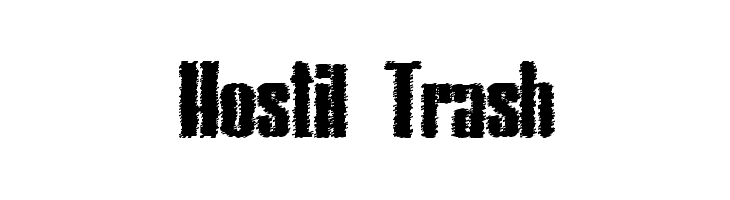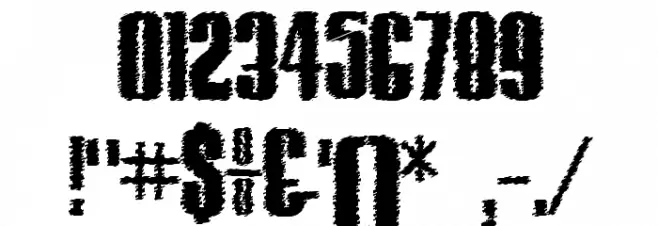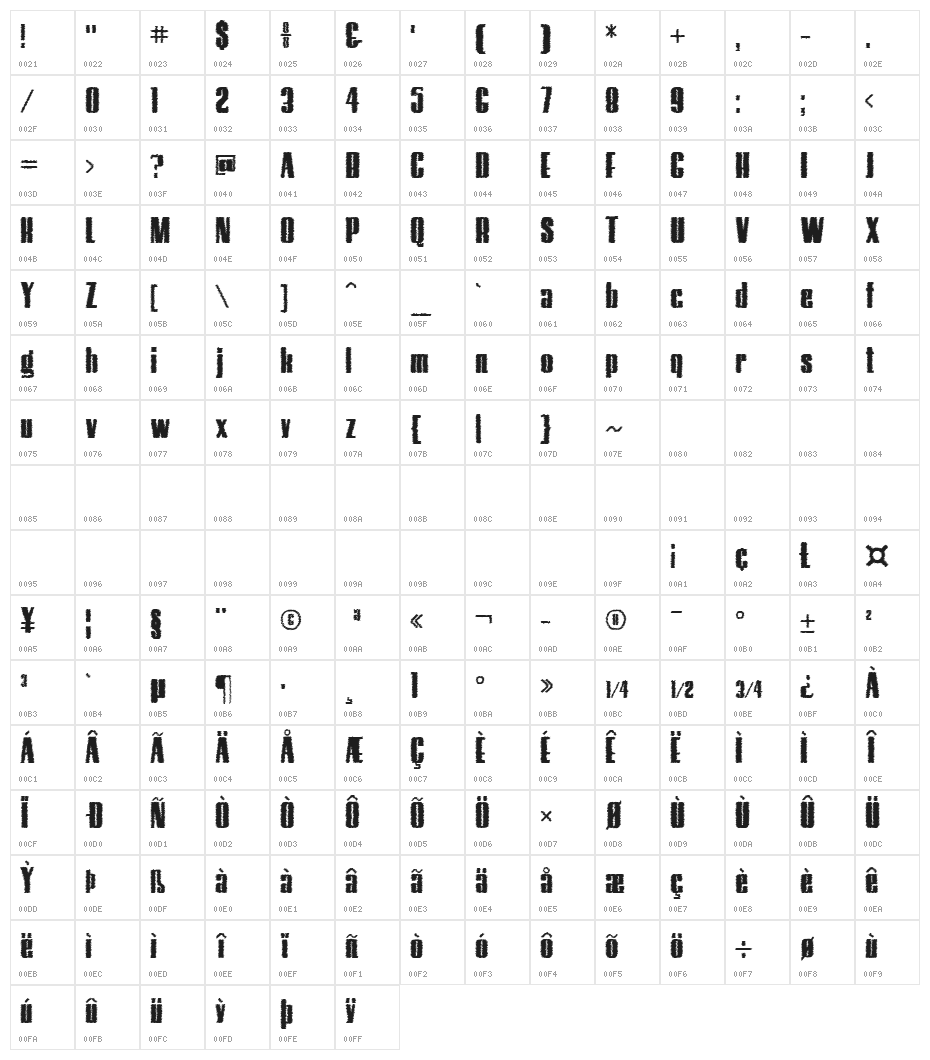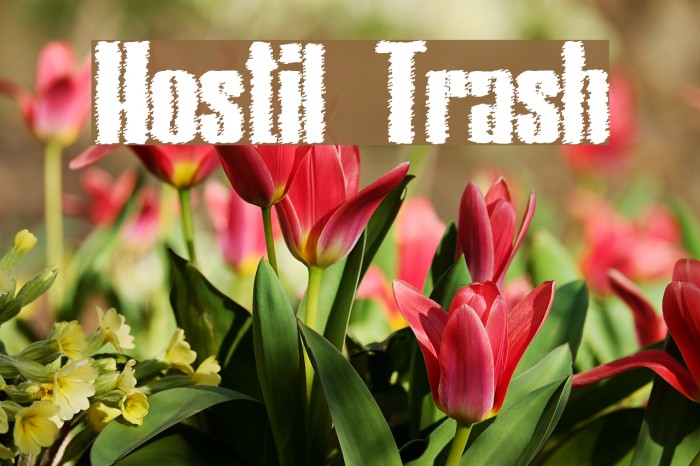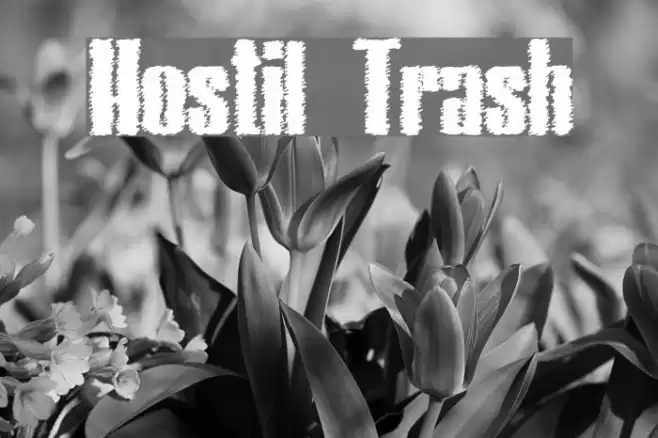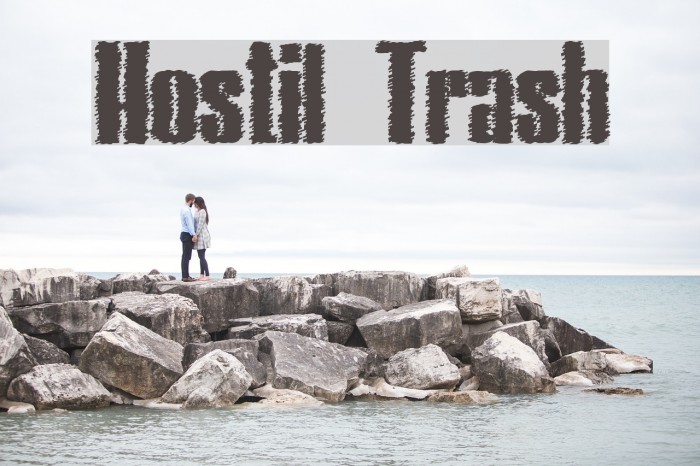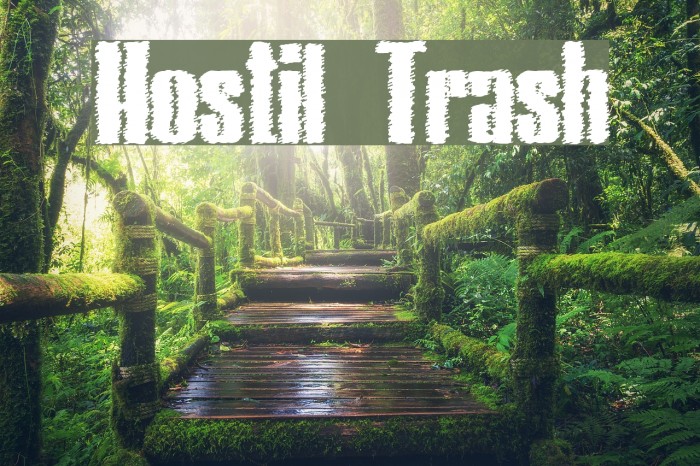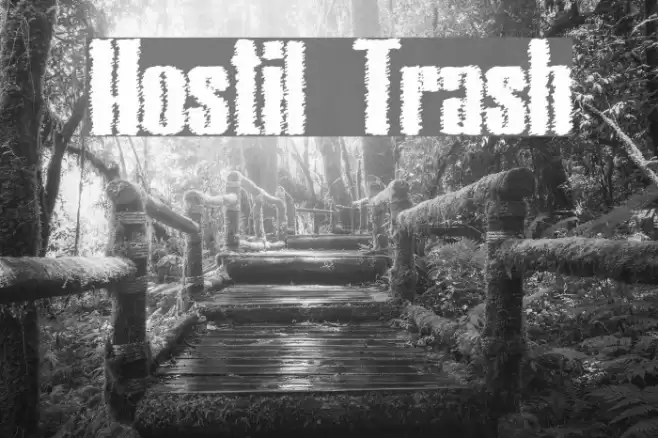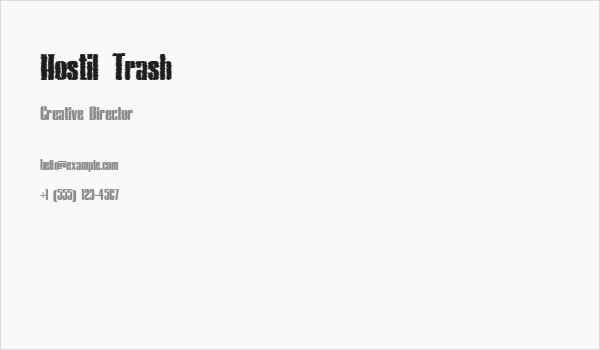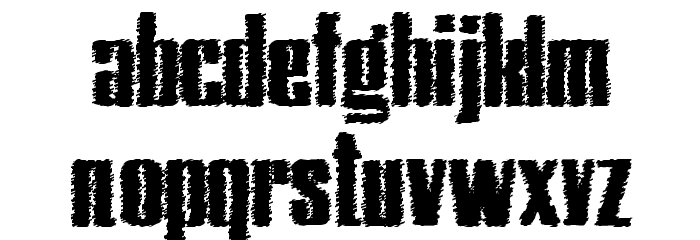
Hostil Trash Font
Hostil Trash Description
This font features a rugged, distressed appearance with a bold and impactful style. The characters are heavily textured, giving them a rough, almost grunge-like feel. The uppercase and lowercase letters maintain a consistent height, while the numbers and special characters follow the same distressed pattern. This font is designed to stand out, making a strong visual statement with its unique, edgy look.
| Proposed Projects | Ideal for music album covers, edgy posters, streetwear branding, or any project needing a bold, rebellious aesthetic. |